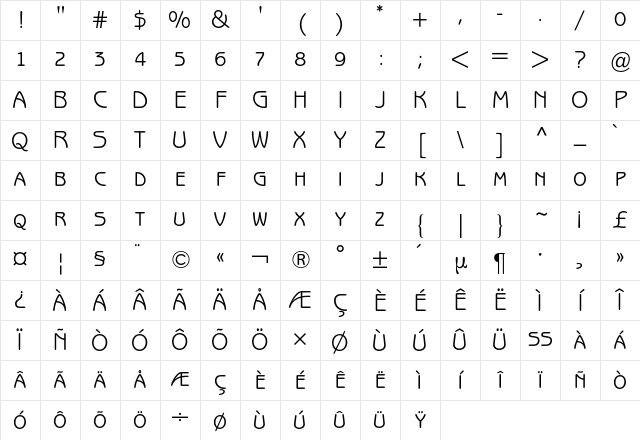
Benguiat Gothic Expert BQ Regular
Benguiat Gothic Expert BQ Family
Benguiat Gothic Expert BQ Regular
Complete Benguiat Gothic Expert BQ Regular glyph index. Displaying only characters natively supported by Benguiat Gothic Expert BQ Regular font.
Design Context for Benguiat Gothic Expert BQ
Benguiat Gothic Expert BQ takes a clean, functional approach - its unadorned letterforms prioritise legibility and work reliably across screen and print environments.
Font Pairing: Works well alongside a characterful serif or display font that can carry the expressive load while Benguiat Gothic Expert BQ handles the functional copy.
Pro Tip: Use Benguiat Gothic Expert BQ for UI labels, navigation, and short-form body copy where clean legibility is the priority.